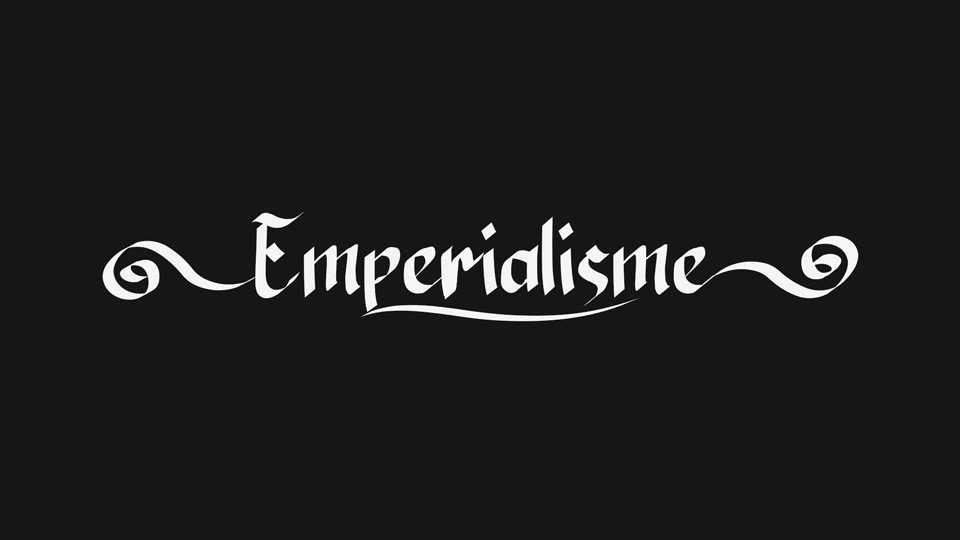
Emperialisme Font › Fontesk – Download Grátis
Download Emperialisme font, a handwritten blackletter typeface that blends the elegance of traditional calligraphy with a touch of contemporary artistic expression. Emperialisme font features a unique and captivating design, with its combination of classic gothic elements and modern fluidity.
Designer: Linafis Studio